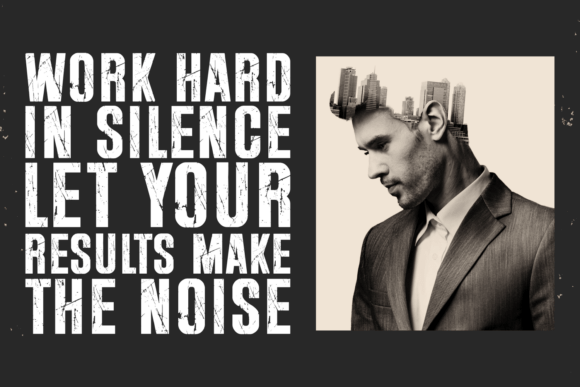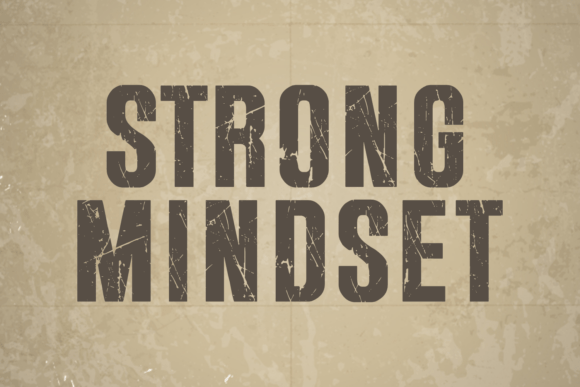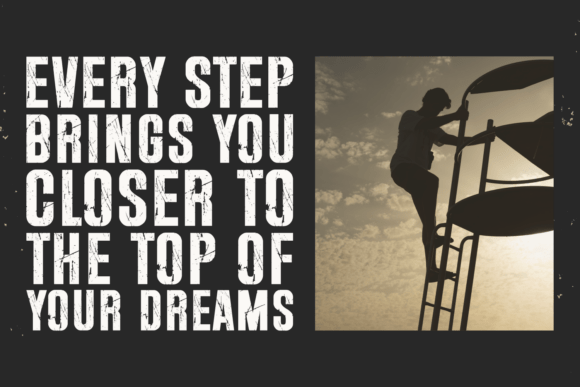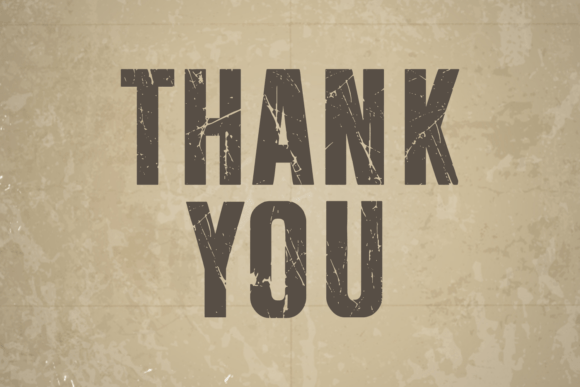
Introduction to Magic Battle Font
Magic Battle is a bold, distressed display font that demands attention.
Featuring rugged textures and a weathered, battle-worn aesthetic, this typeface evokes strength, resilience, and power Perfect for military-themed projects, fantasy game titles, gritty posters, or survival-themed branding, Magic Battle blends raw impact with vintage appeal.
Key Features of Magic Battle Font